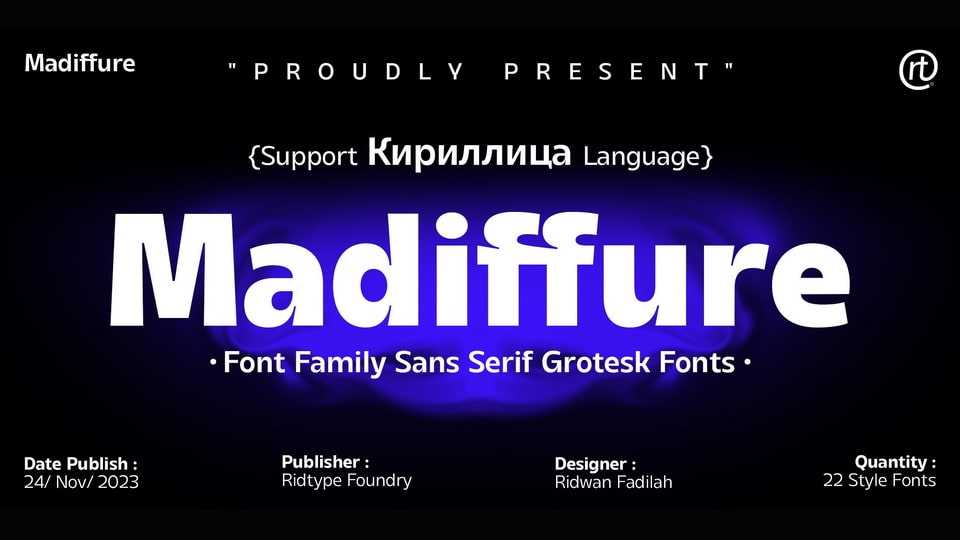
Download Madiffure font, a modified neo-grotesk gothic typeface. Maduffure font basically has no consistency in several letter styles, so this font looks unique and bolder in its application of letter development.
Designer: Ridwan Fadilah